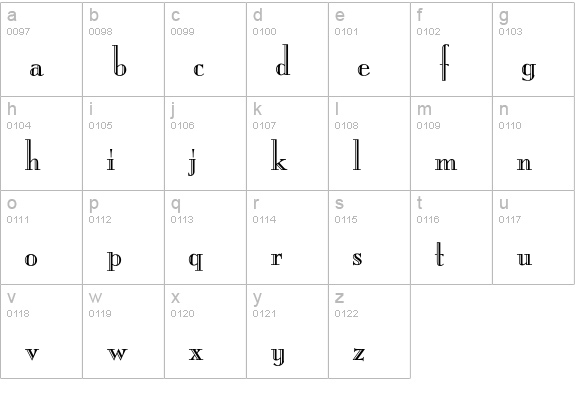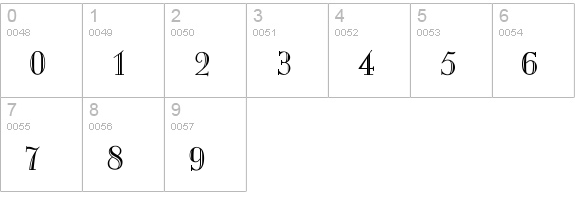
Quichotte Font Details
Introducing Quichotte, a captivating and versatile font that effortlessly combines modern elegance with timeless charm. This exquisite typeface is meticulously crafted to suit a wide range of design projects, making it the perfect choice for both professional and personal endeavors. Quichotte's fluid letterforms gracefully dance across the page, creating a harmonious balance between sophistication and readability. Its clean and refined lines exude a sense of confidence and style, adding a touch of class to any project it adorns. With its extensive character set, Quichotte offers a multitude of possibilities for your creative expressions. From eye-catching headlines to body text that effortlessly guides the reader, this font's versatility knows no bounds. Its legibility ensures a seamless reading experience, while its unique personality sets it apart from the crowd. But what truly sets Quichotte apart is its availability as a free download. That's right, this extraordinary font can be yours without a price tag. Simply head over to FontsMarket.com and discover the world of Quichotte, where quality and affordability meet in perfect harmony. So whether you're a professional designer or a typography enthusiast, Quichotte is the ideal font to elevate your creations. With its timeless appeal, impeccable craftsmanship, and the added bonus of being free, this font is truly a gem waiting to be discovered. Don't miss out on the opportunity to make a lasting impression – download Quichotte today and let your creativity soar.